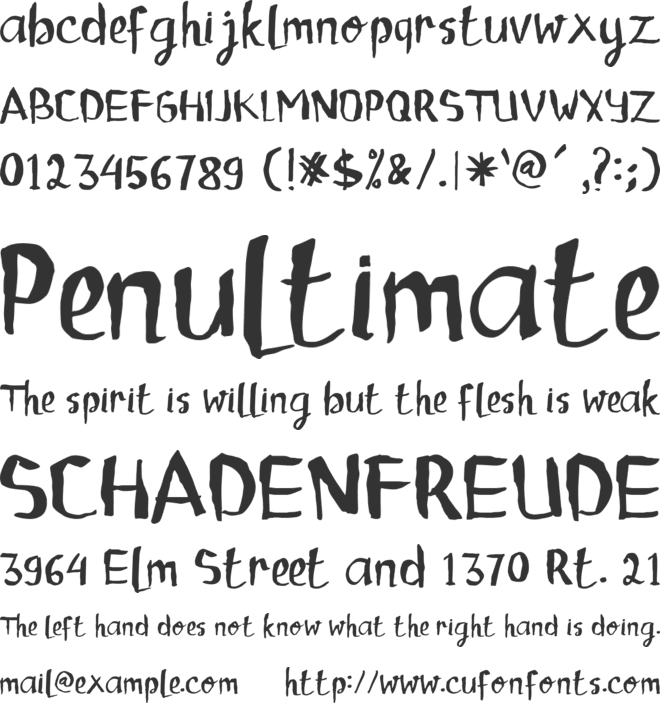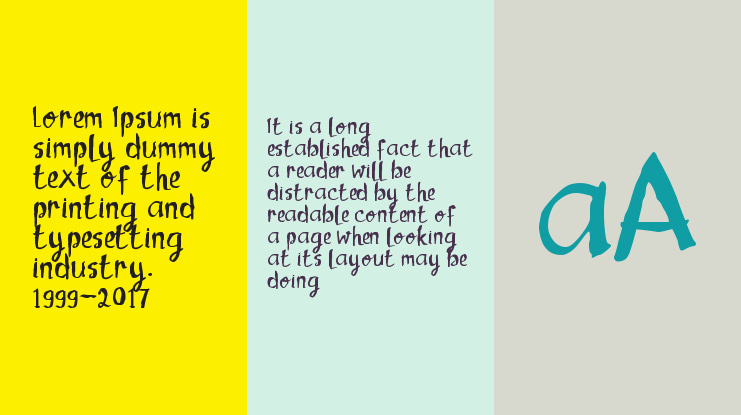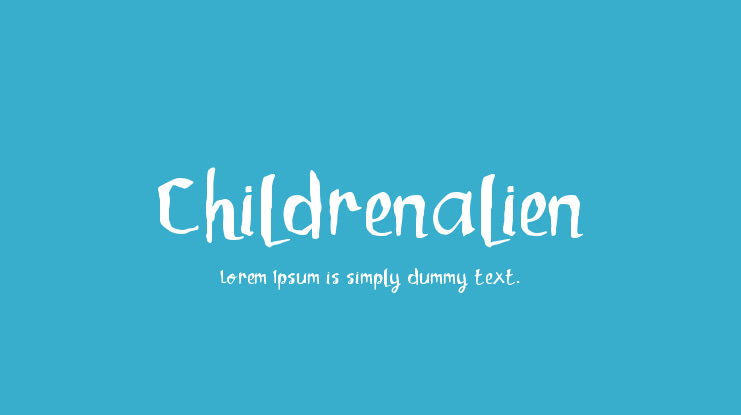
Childrenalien Font
Childrenalien typeface is a unique and every characters in this font are handmade to give a unique and authentic look,
Childrenalien works well for logo, quotes, category header or title on website, and so much more